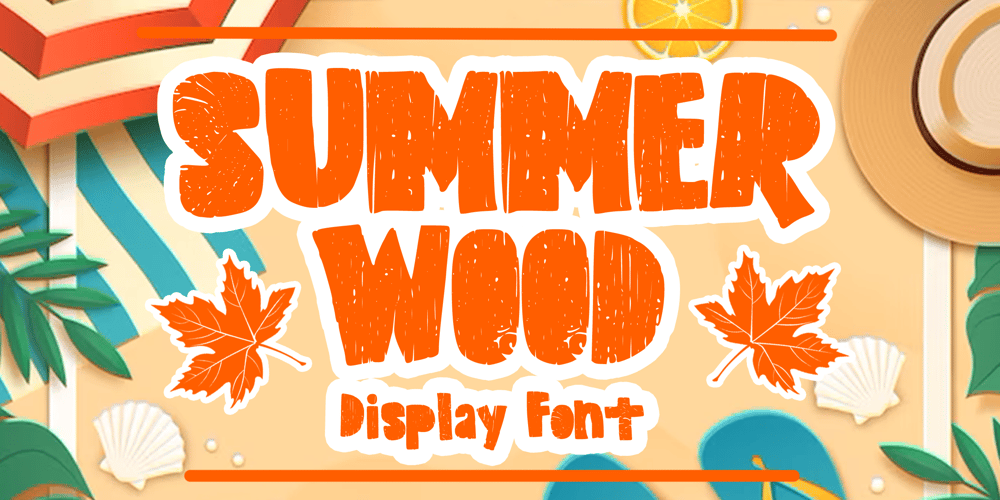
Summer Wood Font Family was designed by Gabriel Valentinus and published by Mvmet. Summer Wood contains 1 styles and family package options. Summer Wood is a bold display font with wood texture on it, suitable for your summer themed needs. You can use it for anything ranging from t-shirts and clothing, for your book designs, summer party needs, greeting cards, stickers, posters, banners, or anything that needs a bold and fun touch. Try it to create fabulous designs and feel the fun and cheering vibes with it!